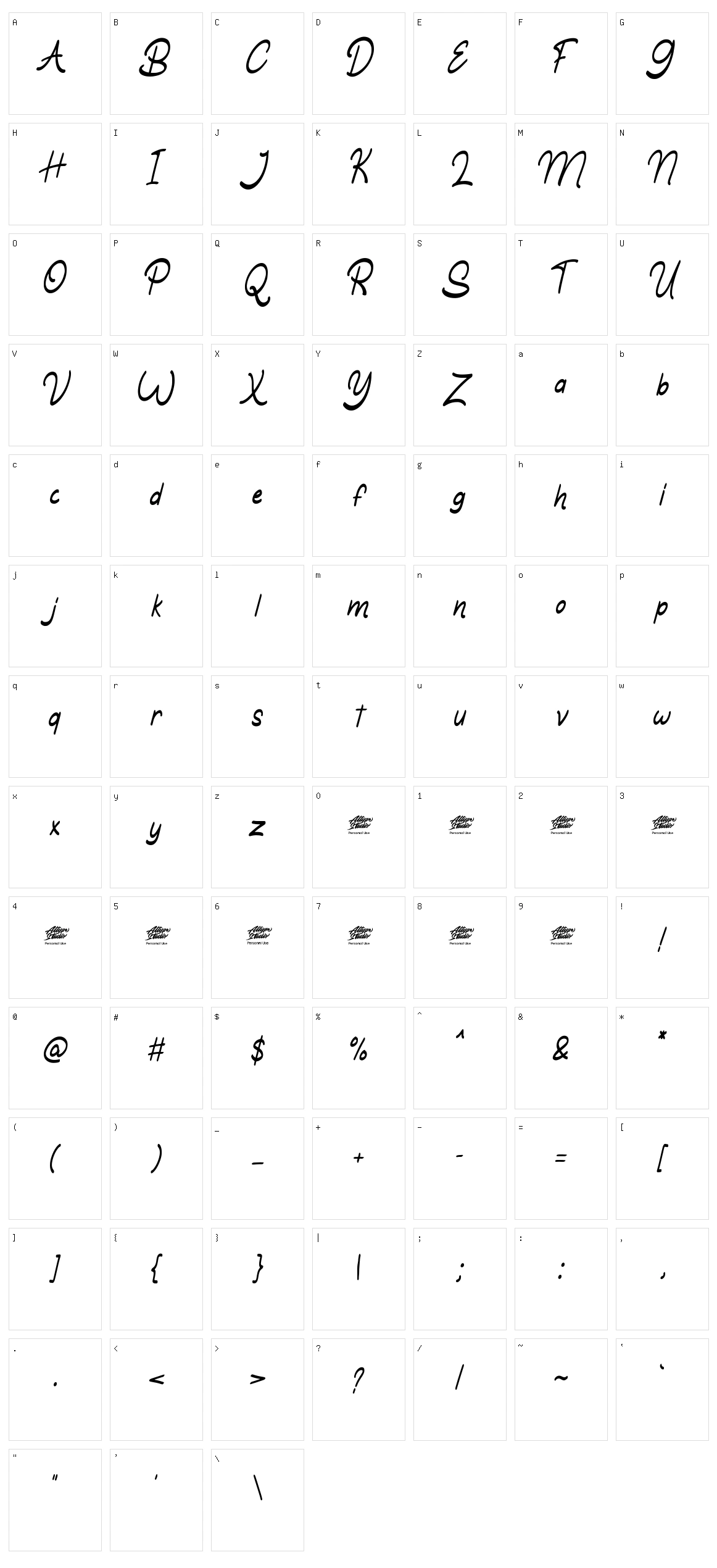
The free font Qicka is carefully designed by Attype Studio, showcasing a thoughtful balance of creativity and usability and falls under the Script font style. When you download the ZIP file, it contains only 649.76 KB of font files, making it lightweight and quick to download. Please review the license details below to understand permitted usage and distribution rights. If license information is not available, we recommend using this font for personal projects only or contacting the author directly for commercial usage permissions.